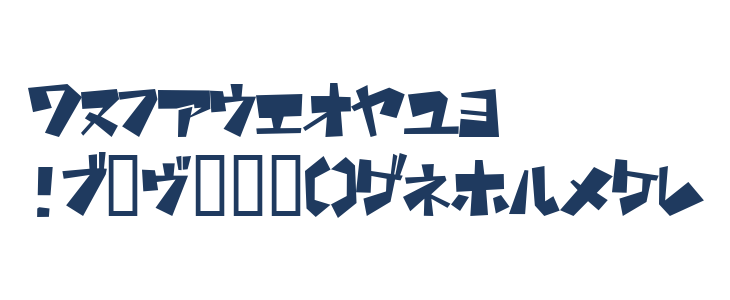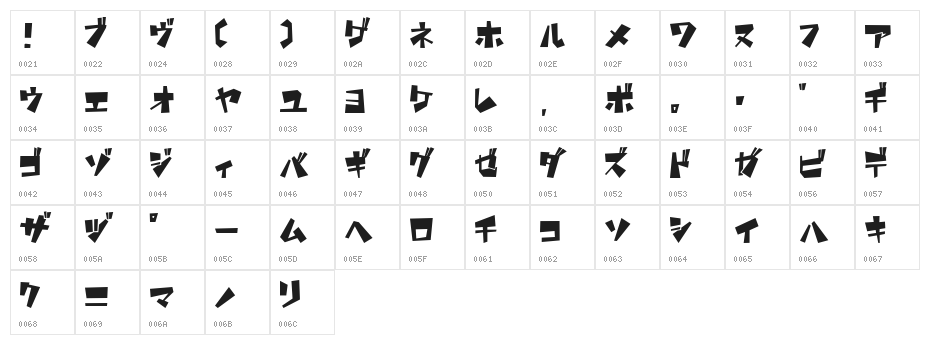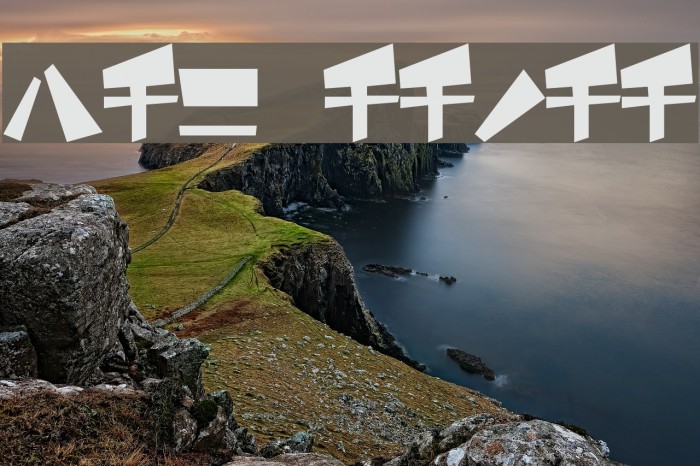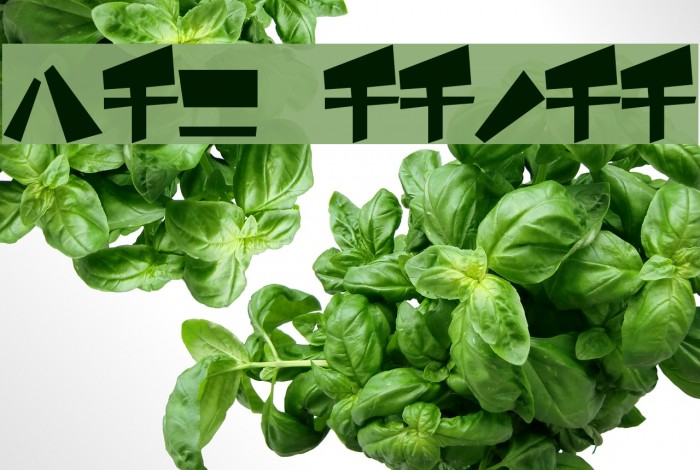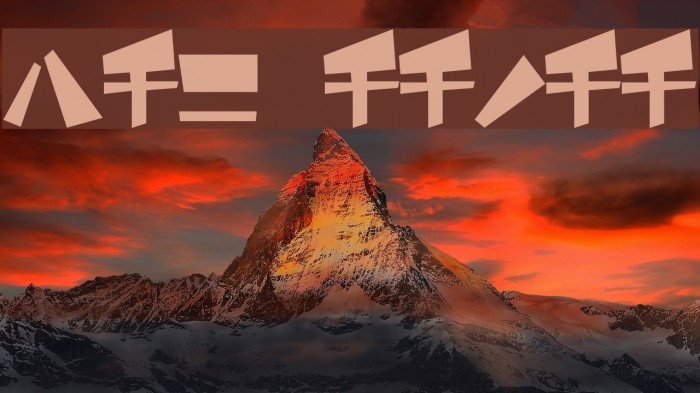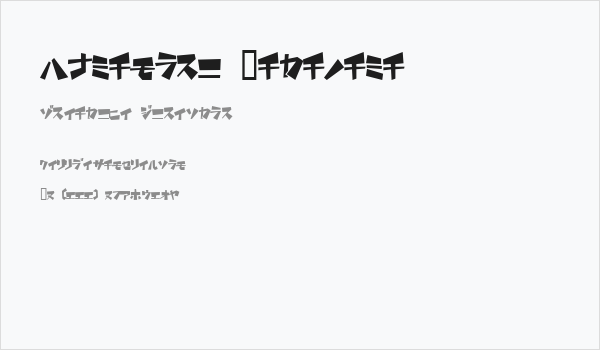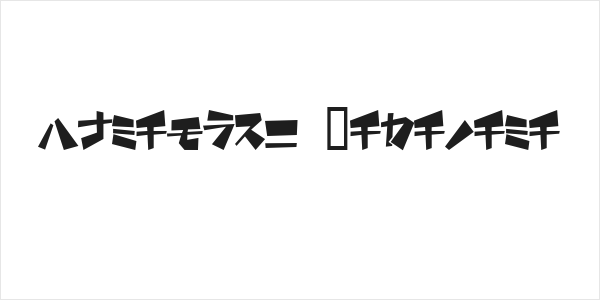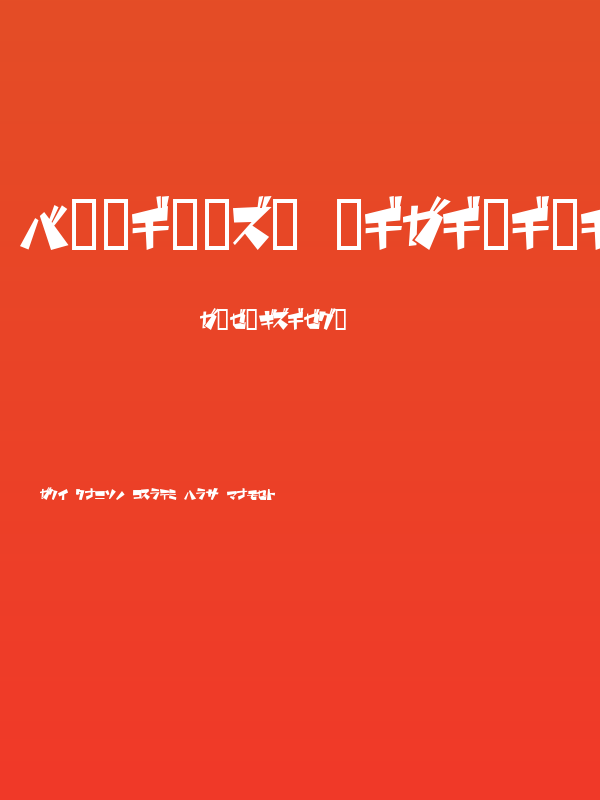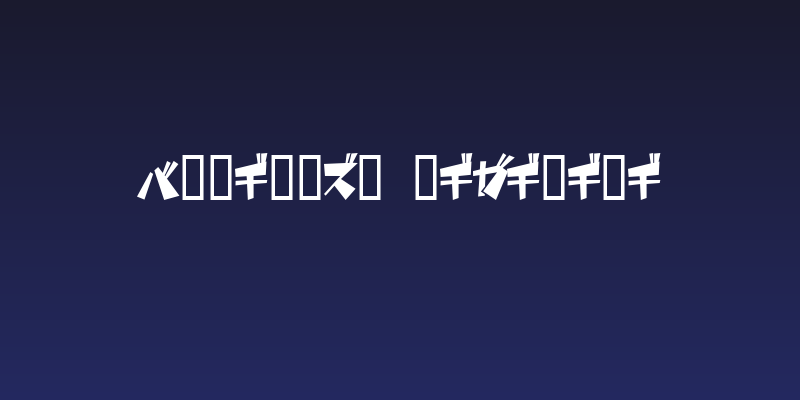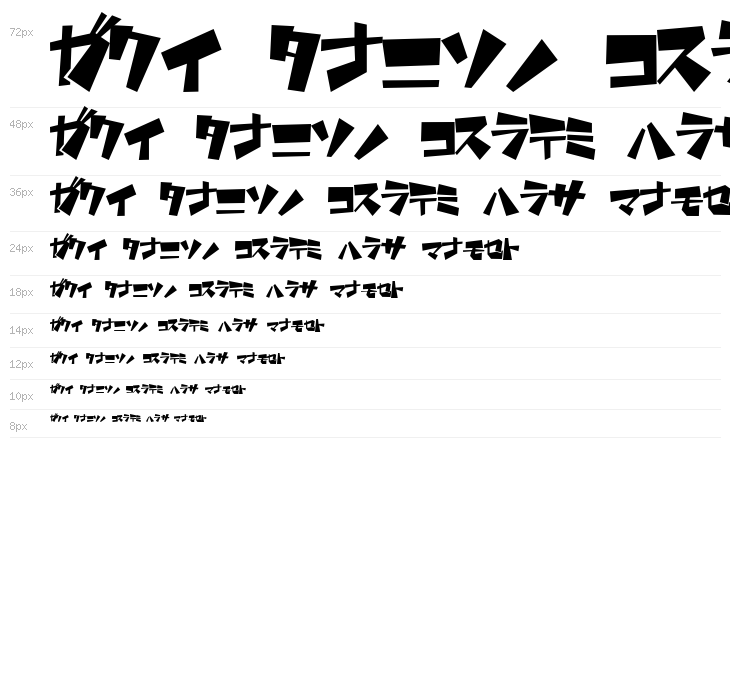
funamori Katakana Font
funamori Katakana Description
This font features bold, angular strokes with a playful and dynamic appearance. The characters are designed with a sense of movement, giving them a lively and energetic feel. The exaggerated angles and sharp edges create a sense of urgency and excitement, making it ideal for attention-grabbing designs. The font maintains a consistent weight throughout, ensuring readability while still offering a unique visual impact. The overall style is modern and slightly futuristic, with a touch of whimsy that makes it stand out.
| Proposed Projects | Ideal for posters, video game titles, comic book covers, and any project requiring a bold, energetic typeface. |